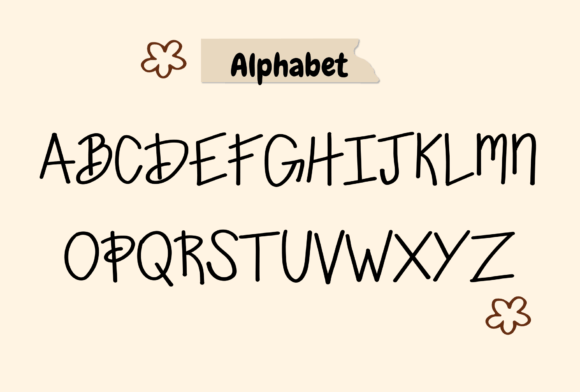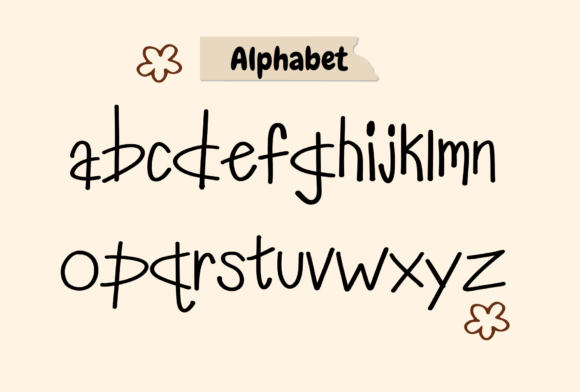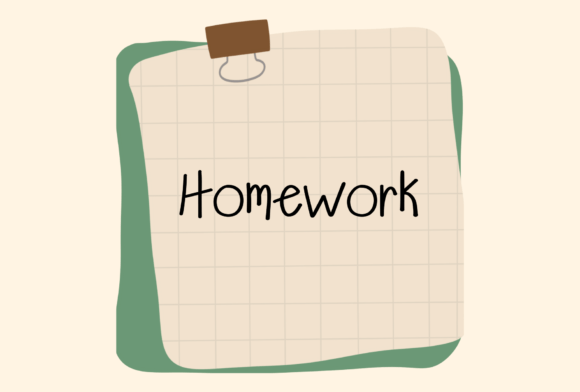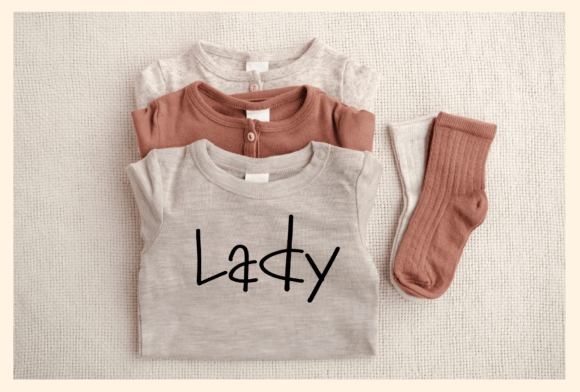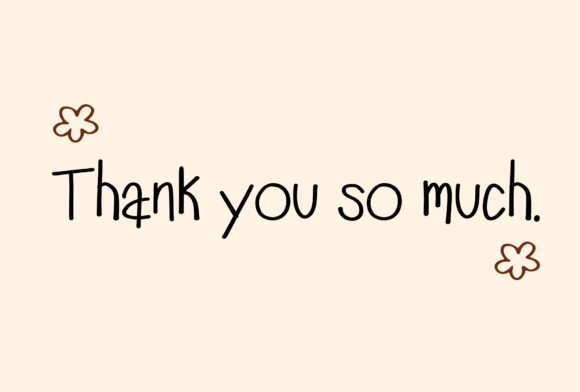
Introduction to Let Go Font Font
Fonts play a crucial role in design, and the Let Go Font font is a typeface that brings both character and versatility to any project. Whether you’re working on a branding project, a website, or a print design, the Let Go Font font offers a unique style that can elevate your work.
| 📌 Font Name | Let Go Font |
| 👤 Author | Candygirl Art |
Let Go is a sweet and friendly handwritten font.
Key Features of Let Go Font Font
Why Choose Let Go Font Font?
The Let Go Font font is more than just a typeface – it’s a design tool that helps you communicate your message with style and clarity. Its unique character set and versatile design make it suitable for a wide range of applications, from elegant invitations to bold headlines.
With its carefully crafted letterforms and balanced proportions, the Let Go Font font ensures readability and visual appeal across all mediums.
What makes Let Go Font font special?
The Let Go Font font stands out with its unique design, exceptional readability, and versatility across various design applications.